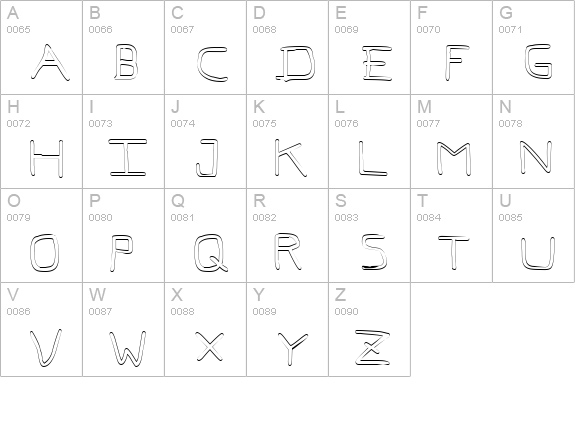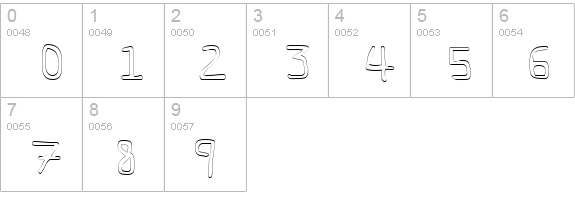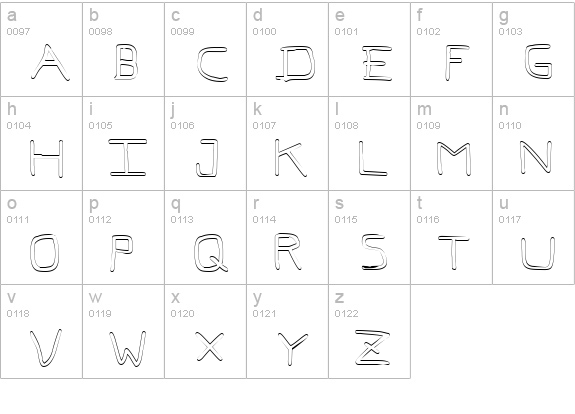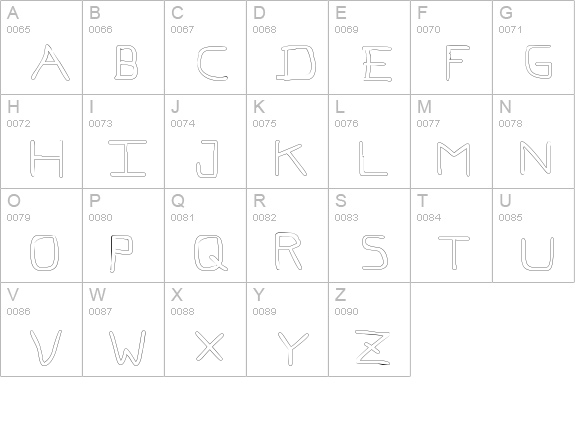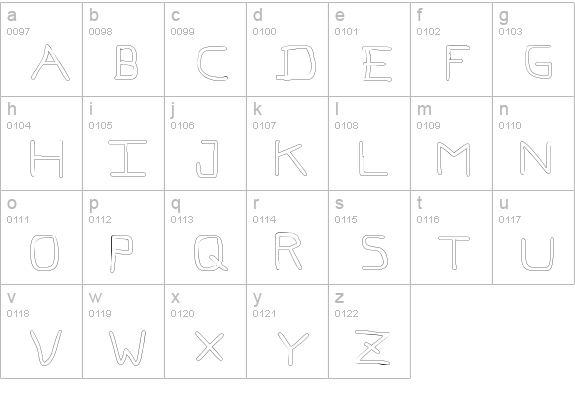
Pf_veryverybadfont7 Outline Font Details
Introducing Pf_veryverybadfont7 Outline font, a stunning typeface that will take your designs to the next level. This font is a perfect choice for those seeking a unique and creative touch in their projects. With its distinct outline style, Pf_veryverybadfont7 is sure to make a lasting impression. Not only does Pf_veryverybadfont7 offer exceptional aesthetics, but it also provides excellent legibility, ensuring that your message is conveyed with clarity and precision. Its meticulously crafted design captures attention and adds an element of sophistication to any design. One of the greatest advantages of Pf_veryverybadfont7 is that it is available for free download at FontsMarket.com. This means that you can access this incredible font without any cost, making it a must-have for designers, students, and anyone looking to enhance their creative projects. Whether you're working on branding, advertising, packaging, or any other design endeavor, Pf_veryverybadfont7 Outline font is a versatile and powerful tool that will help you stand out from the crowd. Its versatility allows it to adapt to various design styles and concepts, making it suitable for a wide range of projects. With its clean and stylish appearance, Pf_veryverybadfont7 Outline font adds a touch of elegance and professionalism to any design. Its smooth lines and well-balanced proportions create a harmonious visual experience, ensuring that your content is visually appealing and engaging. In conclusion, Pf_veryverybadfont7 Outline font is a remarkable typeface that combines stunning aesthetics with exceptional legibility. Its availability for free download at FontsMarket.com makes it even more enticing for designers and enthusiasts alike. Don't miss the opportunity to elevate your designs with this incredible font and unleash your creativity to its fullest potential.